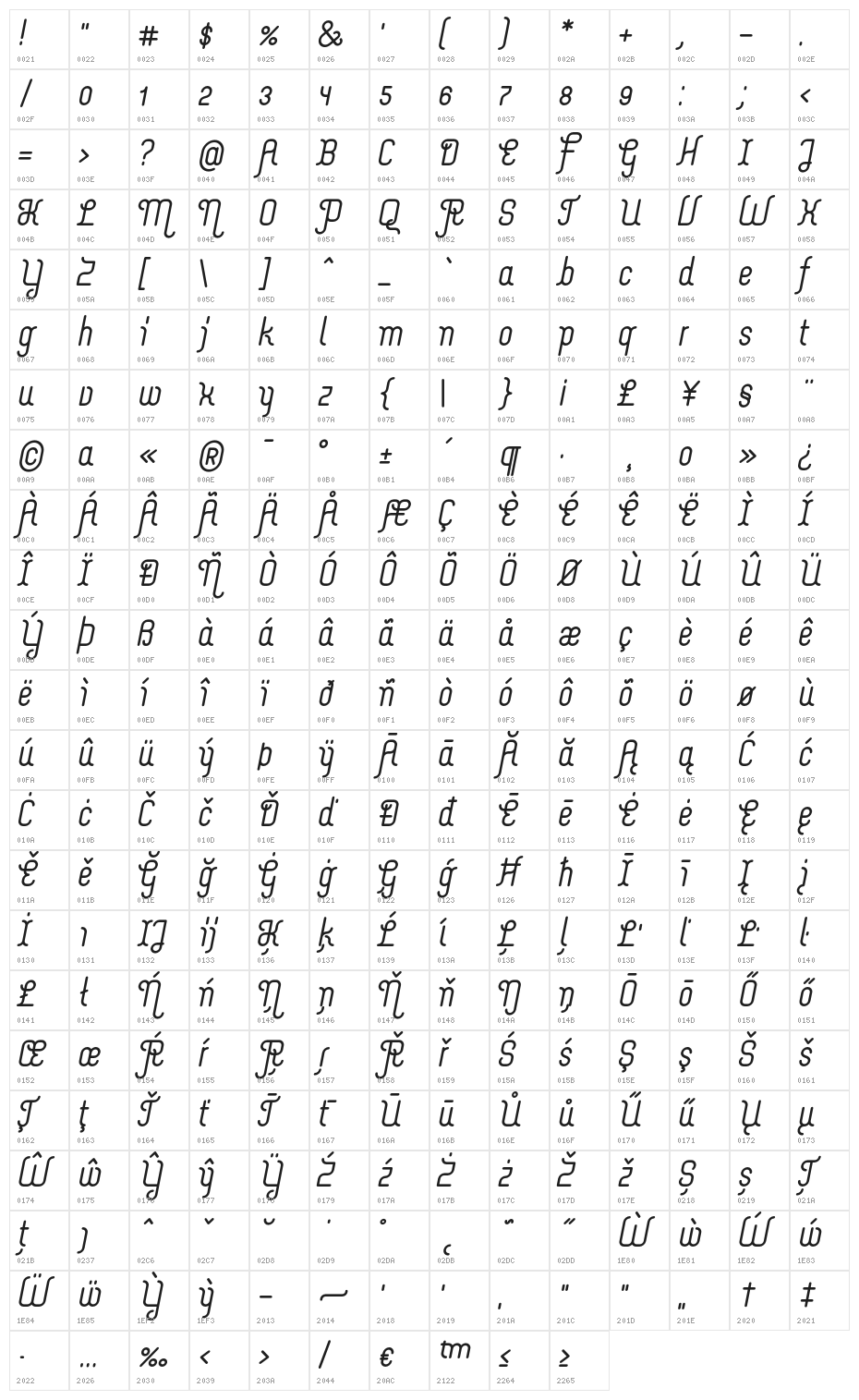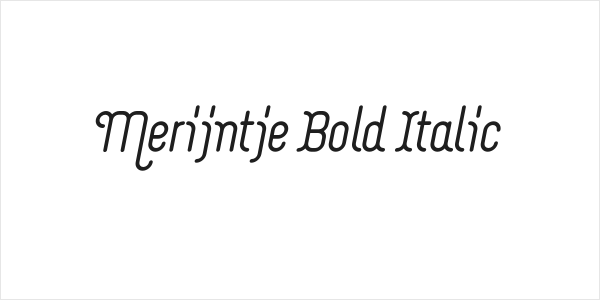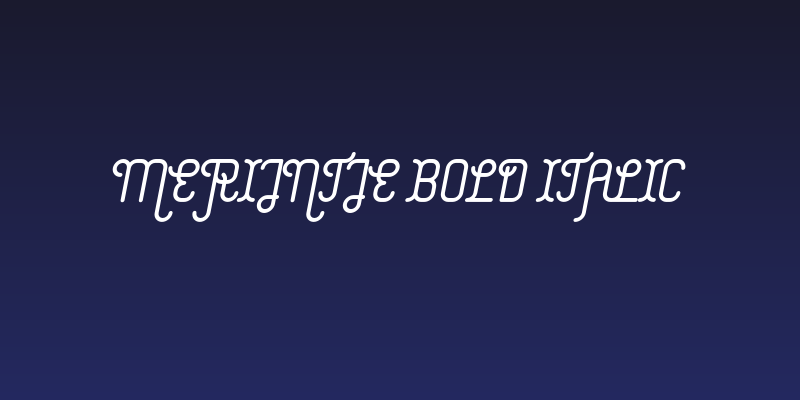
Merijntje Bold Italic Font
Merijntje Bold Italic Description
This font features a bold and italic style with a unique, flowing script that combines elegance with a modern touch. The characters are slightly slanted, giving a sense of movement and dynamism. The strokes are consistent in thickness, providing a uniform appearance across all characters. The uppercase letters are distinct and prominent, while the lowercase letters maintain a smooth and connected look. Numbers and special characters are designed to match the overall aesthetic, ensuring a cohesive appearance. This font is ideal for projects that require a stylish and contemporary script.
| Use Case | Logos, Invitations, Editorial design |
| Proposed Projects | Ideal for branding, invitations, and editorial design where a modern script is desired. |